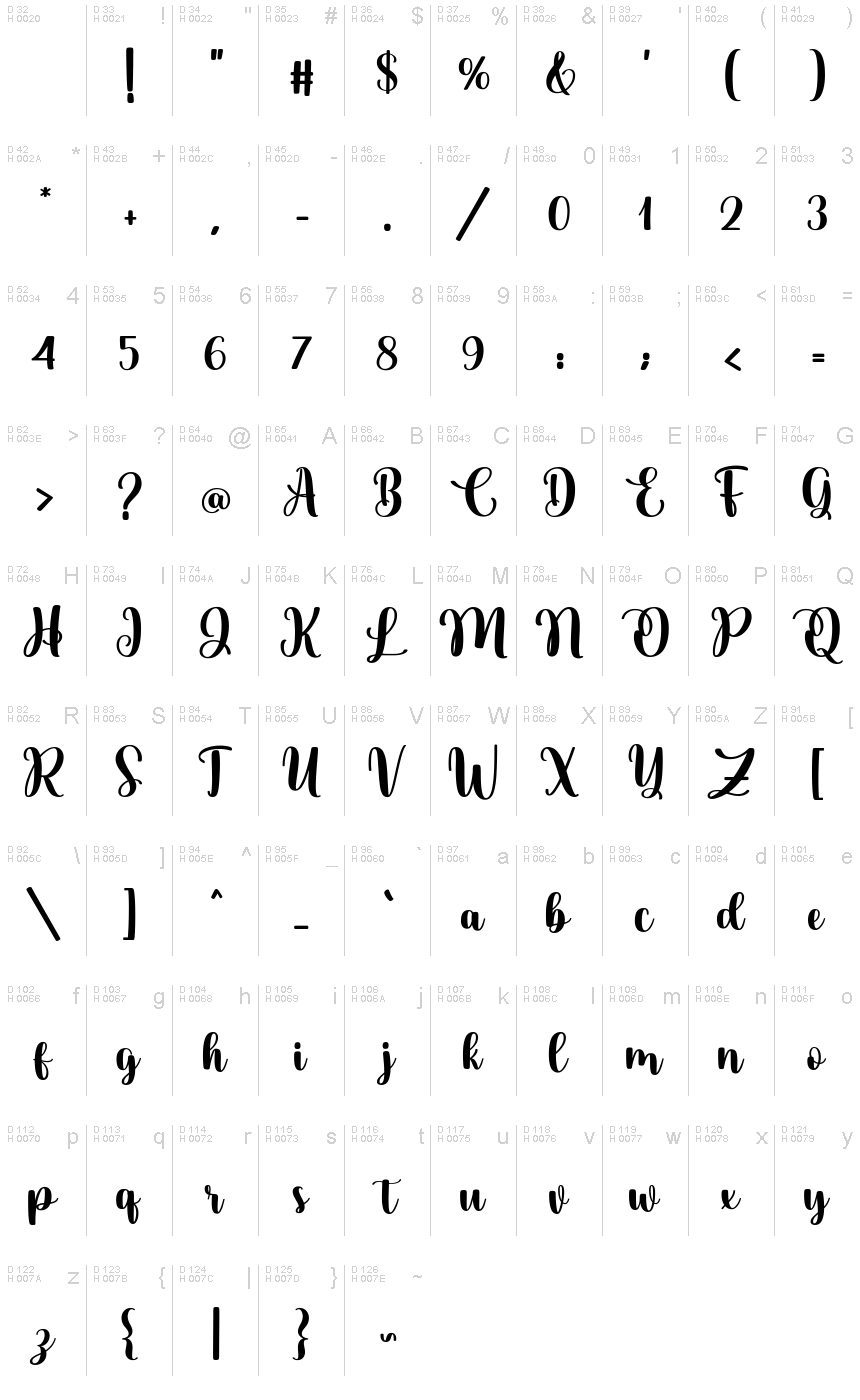
Bring, designed by Makashi, is a calligraphy font that radiates a blend of classic elegance and modern creativity. Its sweeping curves and fine lines evoke the artistry of traditional hand-lettering, yet its crisp execution lends itself seamlessly to contemporary design. Each character in Bring is crafted with an eye for fluidity, making the text flow like ink across the page. This font's aesthetic appeal lies in its balanced contrast—bold enough to stand out yet delicate enough to convey sophistication.
Perfect for invitations, branding, and editorial work, Bring offers versatility for designers looking to infuse their projects with a touch of personalized charm. The style encapsulates an air of romance and intimacy that can elevate any creative endeavor it graces. Whether it's the centrepiece of a wedding suite or adding an artisanal flair to marketing materials, Bring promises to deliver beauty and character in every stroke.